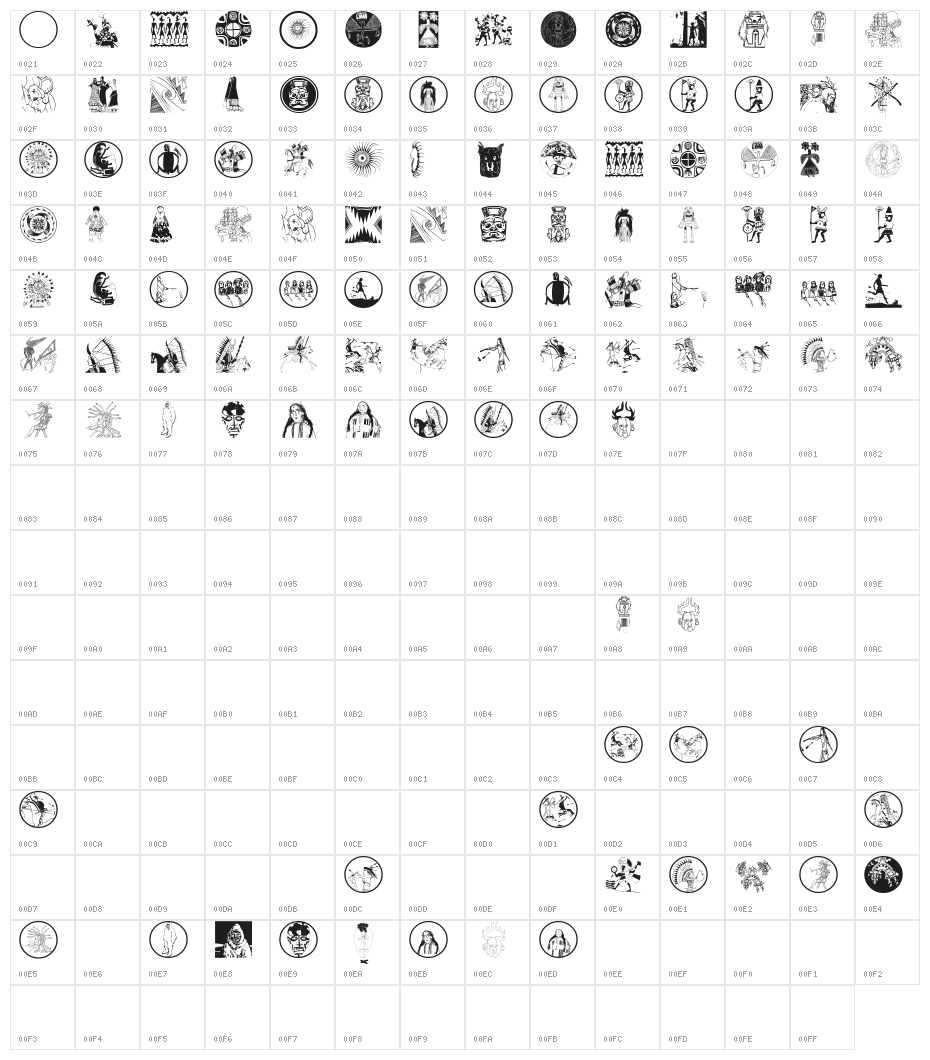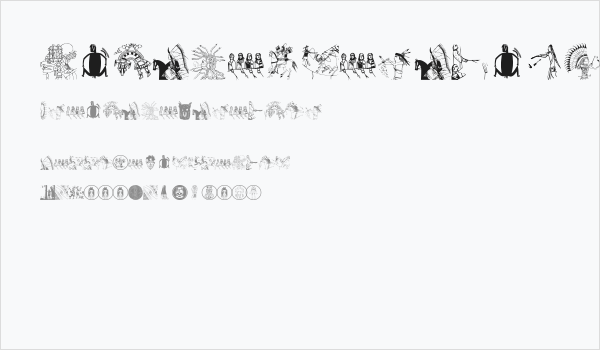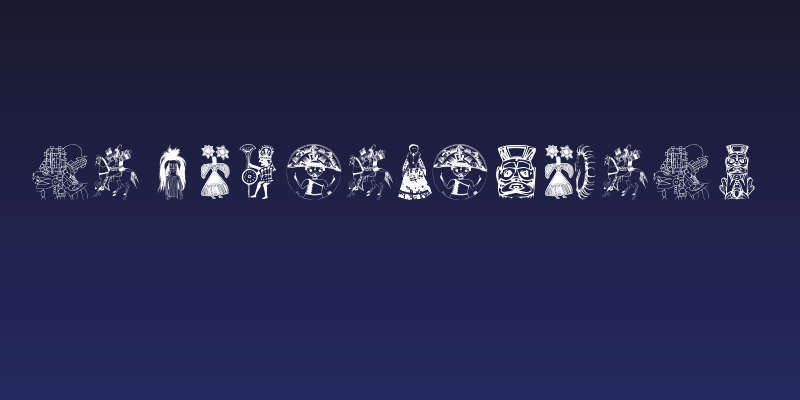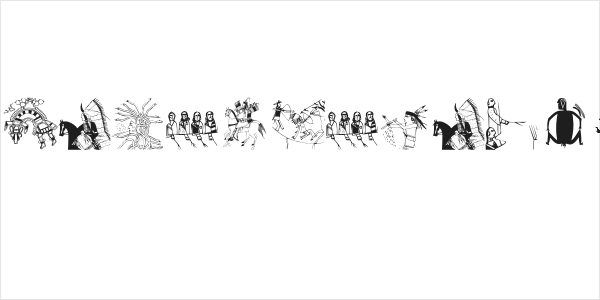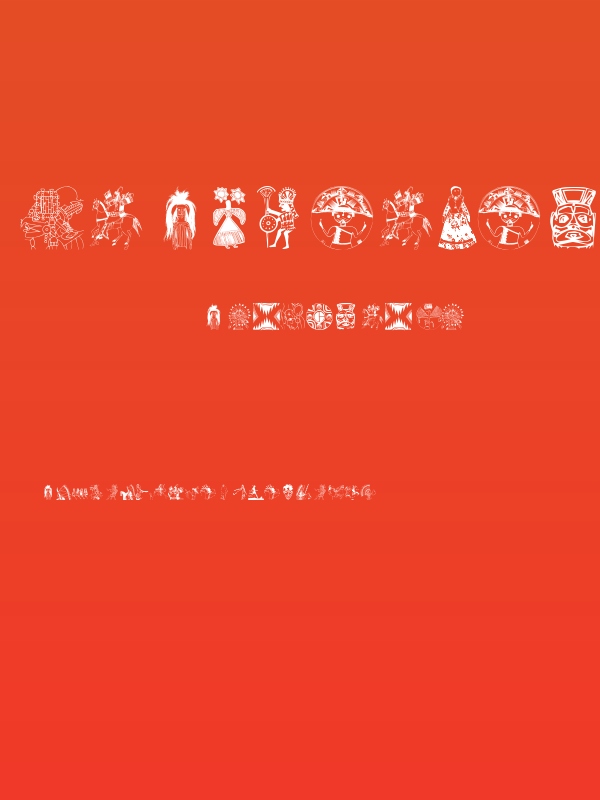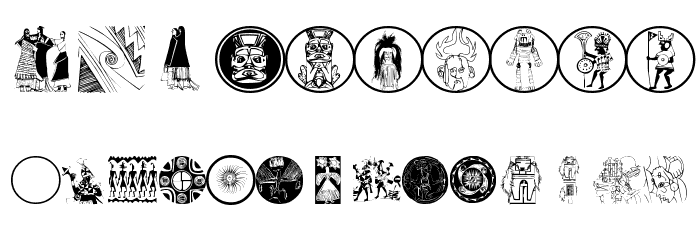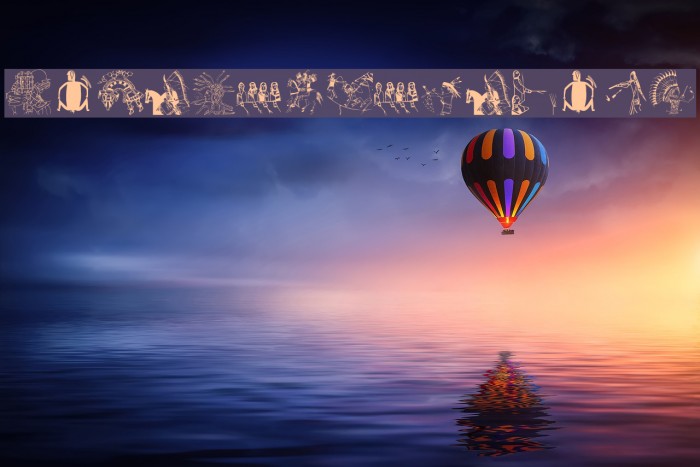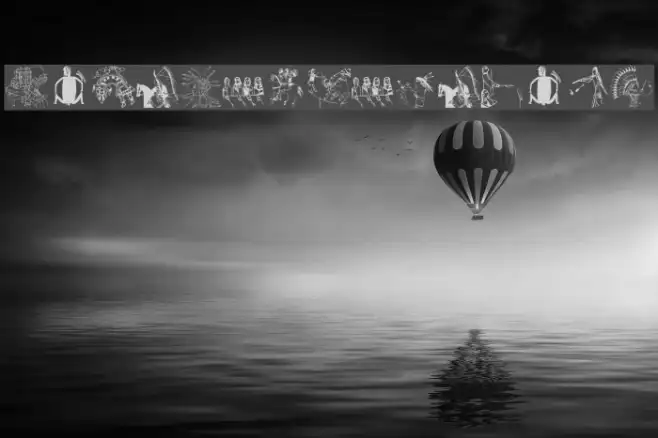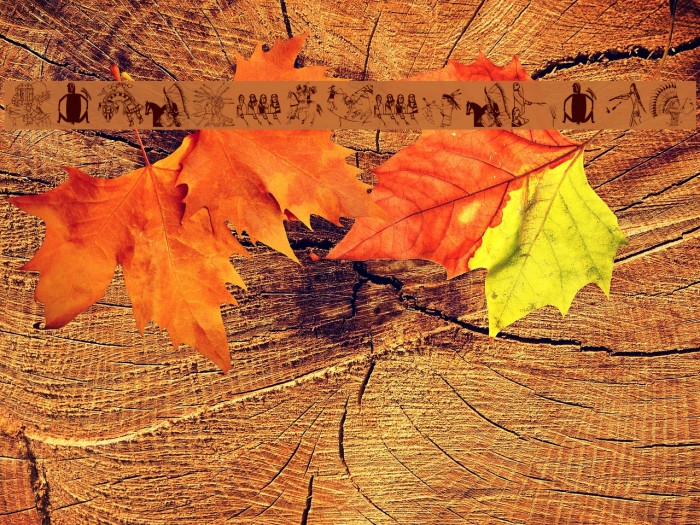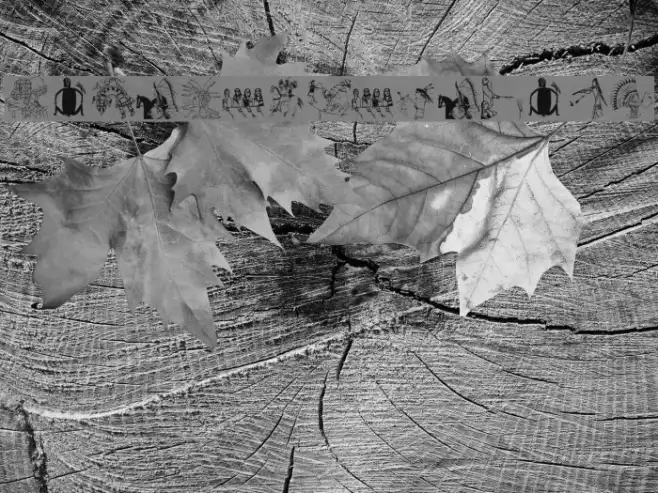
NativeAmericans Font
NativeAmericans Description
A decorative display font featuring intricate illustrations inspired by Native American art, culture, and symbolism. Each character is represented by a unique pictorial glyph, including figures, masks, patterns, and ceremonial scenes, rendered in detailed black and white linework.
| Overall Style | Decorative, Cultural, Illustrative |
| Use Case | Headlines, Logos, Posters, Thematic graphics |
| Proposed Projects | Educational materials, cultural event posters, themed branding, museum exhibits, decorative titles. |